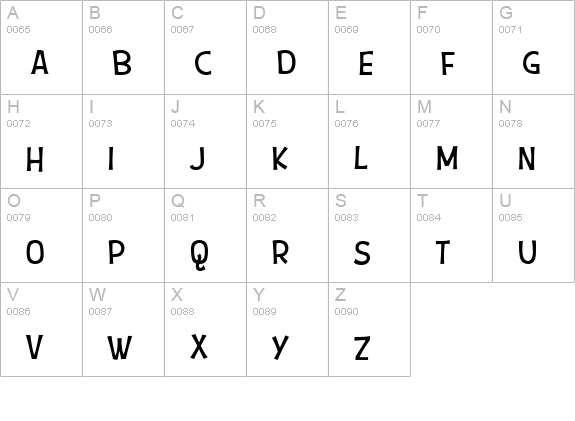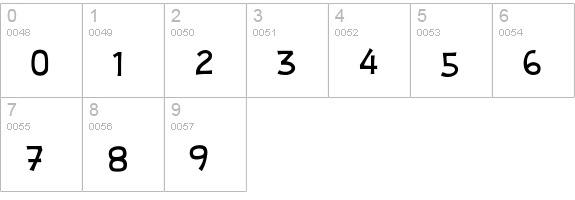
Introducing the delightful and whimsical Snoopy font - a perfect representation of everyone's favorite beagle from the beloved Peanuts comic strip. This charming typeface captures the essence of Snoopy's playful personality with its rounded edges and friendly curves. It adds a touch of nostalgia and lightheartedness to any design project, whether it's a greeting card, children's book, or even a playful logo. What makes the Snoopy font even more appealing is that it is available for free! Yes, you heard it right - this delightful typeface can be freely downloaded at FontsMarket.com. Now you can effortlessly bring Snoopy's joyful spirit into your designs without any cost. Whether you're a professional designer or simply a fan of Snoopy, this font is a must-have in your collection. With its wide range of characters and ligatures, the Snoopy font offers versatility and creativity. It is perfect for adding a touch of fun to headlines, captions, or even body text. Its legibility ensures that your message will be conveyed clearly, while its unique charm adds an extra layer of visual interest. So why wait? Let Snoopy font be your creative companion, infusing your projects with a sense of playfulness and joy. Download it for free today at FontsMarket.com and watch your designs come to life with the timeless charm of Snoopy.